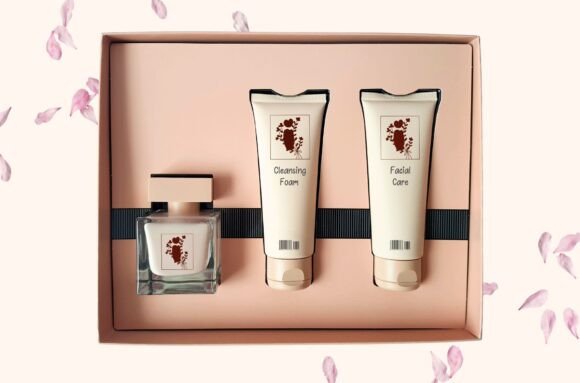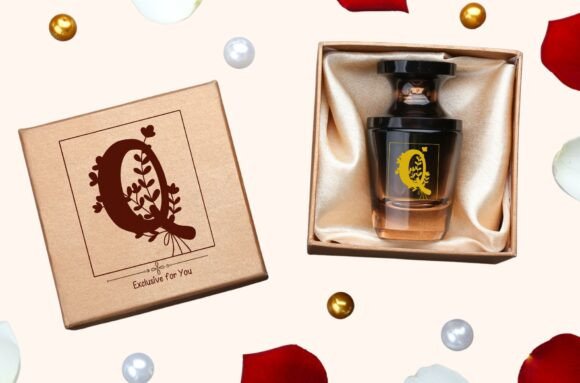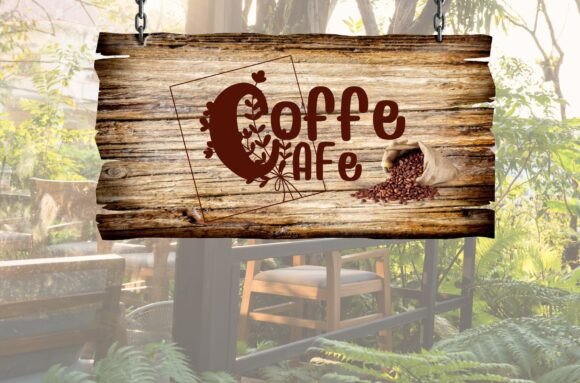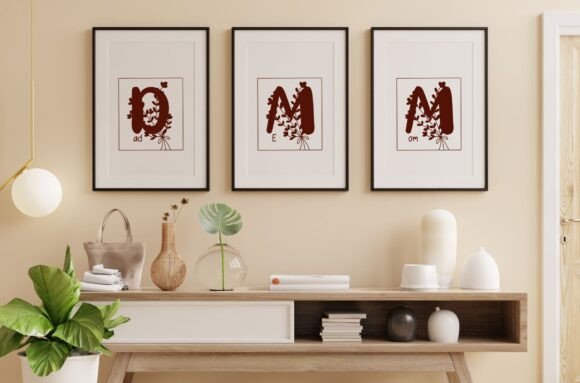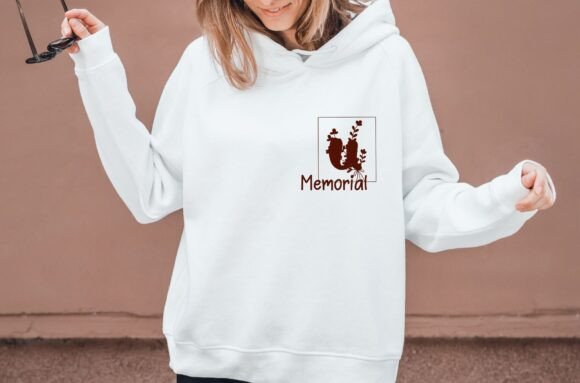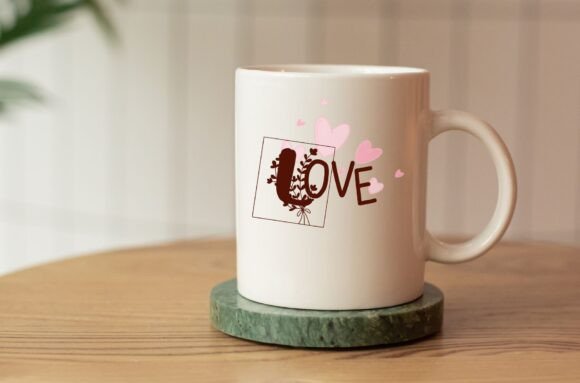
Unleash the Beauty of Botanic Font
Have you ever been in the midst of a creative project, pouring your heart and soul into it, only to feel like something is missing? That’s when the magic happens – you stumble upon the perfect font to bring your vision to life. For designers, finding the right font can be a game-changer, and that’s where the enchanting Botanic Font comes in.
This stunning decorative font is a designer’s dream come true, perfect for adding a touch of elegance to logos, branding, wedding invitations, and more. Its whimsical charm makes it a standout choice for children’s designs, social media graphics, and even merchandise like t-shirts and mugs. With the Botanic Font, you can breathe new life into your creative ideas and watch them flourish.
Botanic Font Key Features
- Unique Characteristics: The font features a unique blend of botanical and modern elements, with intricate details and subtle texture, giving it a distinctive and eye-catching appearance.
Designer Review: Botanic Font
Botanic Font is a beautiful, hand-drawn typeface that brings a touch of elegance to any design project. ✨ I love how the intricate details and organic shapes come together to create a unique visual experience. The font is perfect for creating invitations, branding materials, and other design elements that require a touch of whimsy and sophistication.
One of the standout features of Botanic Font is its versatility. ✨ It can be used in a variety of contexts, from formal events to more casual gatherings, and always looks stunning. The font also comes in multiple weights, making it easy to find the perfect version to suit your design needs.
- ⚠️ Limited character set: While Botanic Font is available in multiple weights, the character set is not as extensive as some other fonts, which can make it difficult to use for longer blocks of text.
- ⚠️ Not suitable for body text: Due to its ornate design, Botanic Font is best used for headings and titles rather than body text, where legibility is crucial.
Overall, I think Botanic Font is a stunning addition to any designer’s toolkit. While it may have some limitations, its unique charm and versatility make it a great choice for a wide range of design projects. ✨
Tips for Getting the Most Out of Botanic Font
Here are some tips for getting the most out of the Botanic font:
- Use the font in combination with natural, earthy colors to create a cohesive look.
- Use the font to create headings and titles, and reserve a standard font for body text.
The Botanic font is particularly well-suited for:
- Outdoor and nature-themed designs.
- Wellness and self-care branding.
- Environmental and conservation projects.